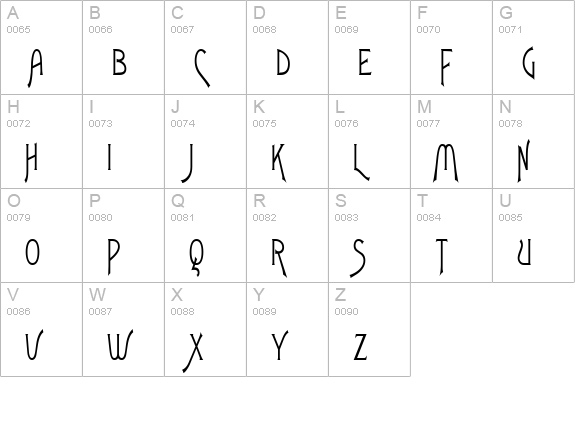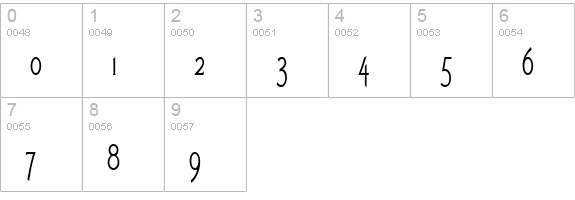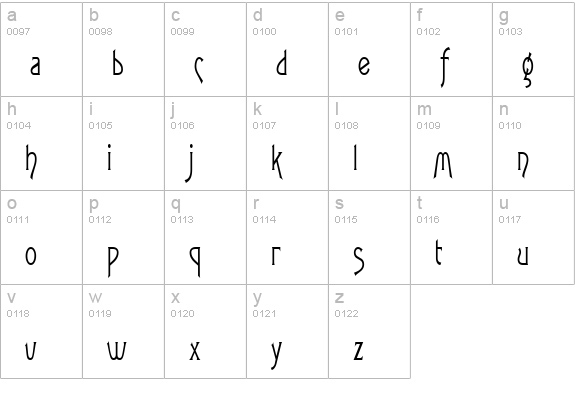
Fletch Thin Normal is a delicate, low-contrast variant in the Fletch typeface family \xE2\x80\x94 well suited to fashion editorial, minimal branding, and high-contrast display.
Fletch Thin Normal font is a sleek and stylish typeface that exudes elegance and sophistication. With its delicate lines and modern design, this font is perfect for adding a touch of sophistication to any project. Whether you're designing a logo, creating a website, or crafting marketing materials, Fletch Thin Normal font will elevate your work to the next level. The best part? Fletch Thin Normal font is completely free to download at FontsMarket.com. That's right, you can enhance your designs with this beautiful font without spending a dime. Don't miss out on this fantastic opportunity to elevate your projects with Fletch Thin Normal font - download it for free today at FontsMarket.com!